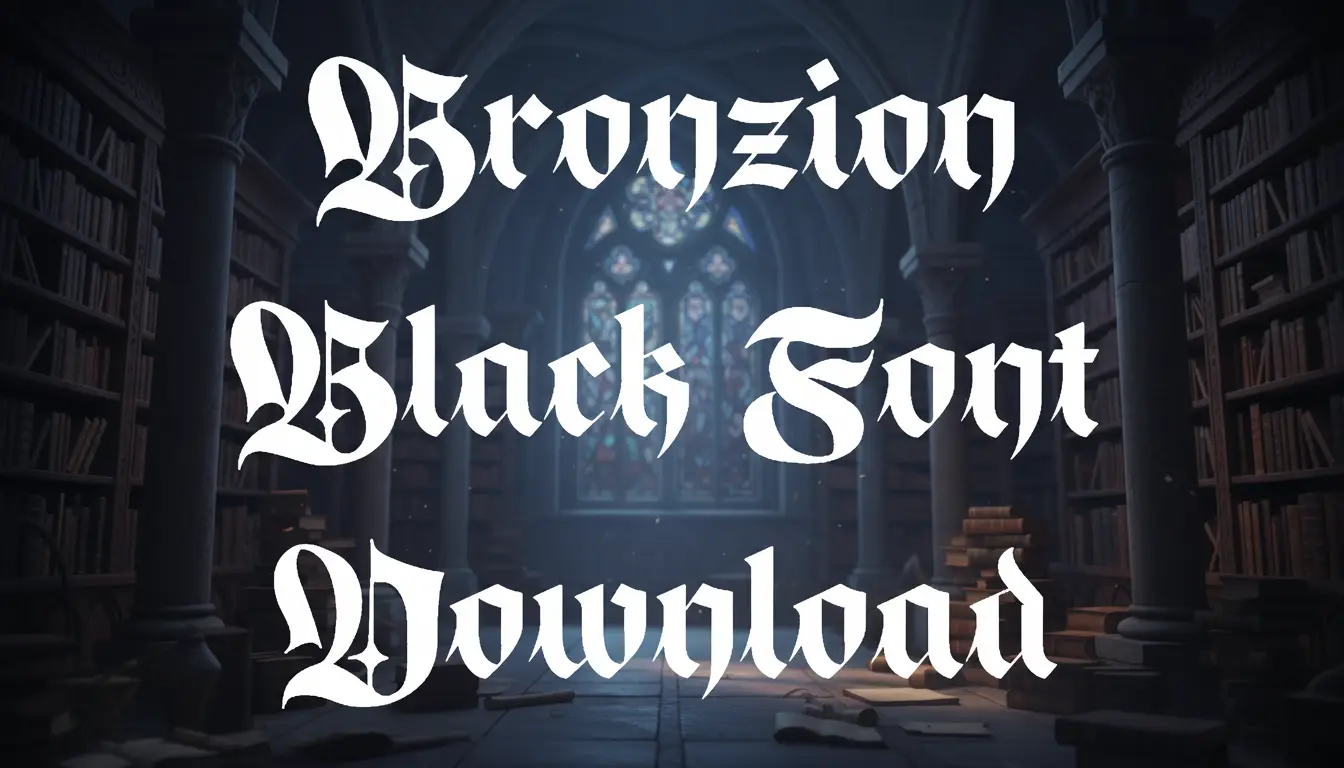
Bronzion Black Font
Bronzion Black
Bronzion Black is a gothic font designed by Mans Greback and published by Mans Greback AB. Its pointed, heavy strokes give it a dark, dramatic blackletter look. You can download it for free and test it with your own words in the preview above.
What You Can Type With Bronzion Black
With complete upper and lowercase letters and all ten digits, Bronzion Black is ready for real wording, not just a single headline. Common punctuation such as &, !, ? and @ is included as well. It also has the accented letters you need for Spanish, French, German, Portuguese and Italian.
Where Bronzion Black Works Best
Bronzion Black is a natural fit for tattoos, metal band logos and dark fantasy titles. Blackletter is very hard to read in all caps, so type in normal upper and lowercase.
Does Bronzion Black support accented letters?
Yes. Bronzion Black includes the accented letters needed for Spanish, French, German, Portuguese and Italian, so it works for more than just English.